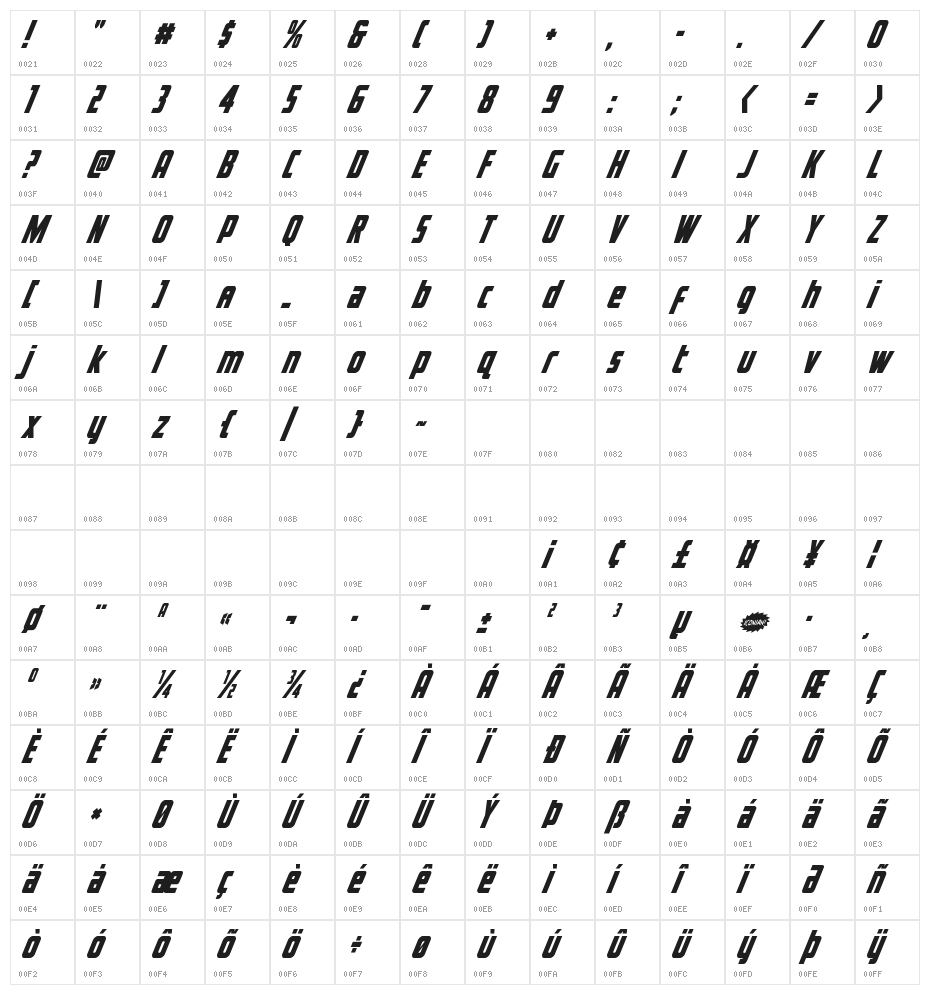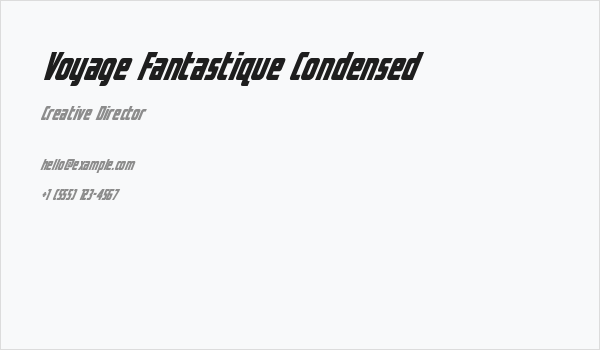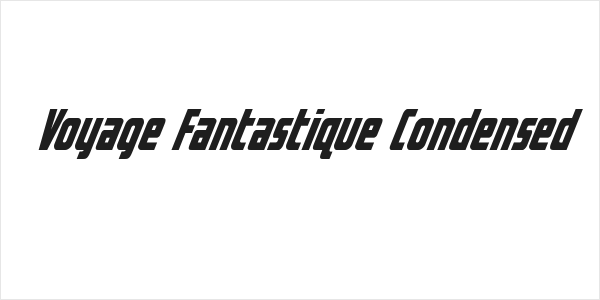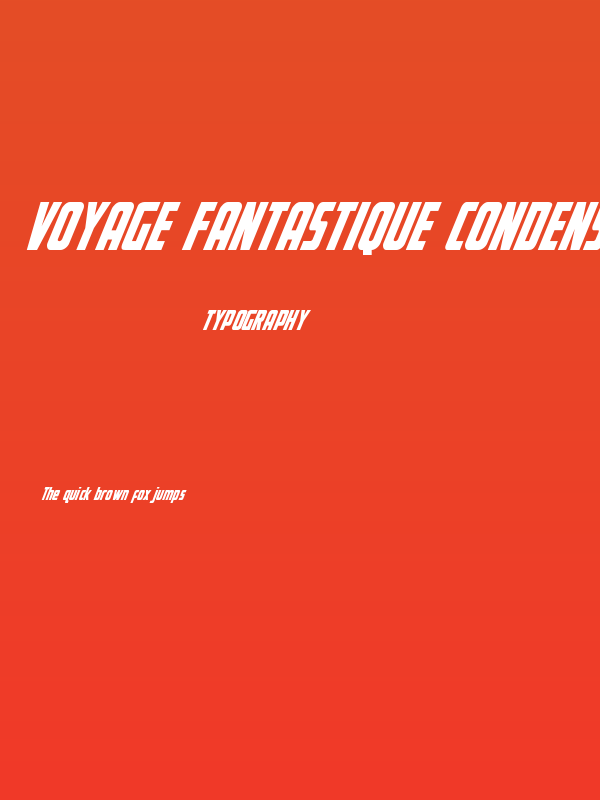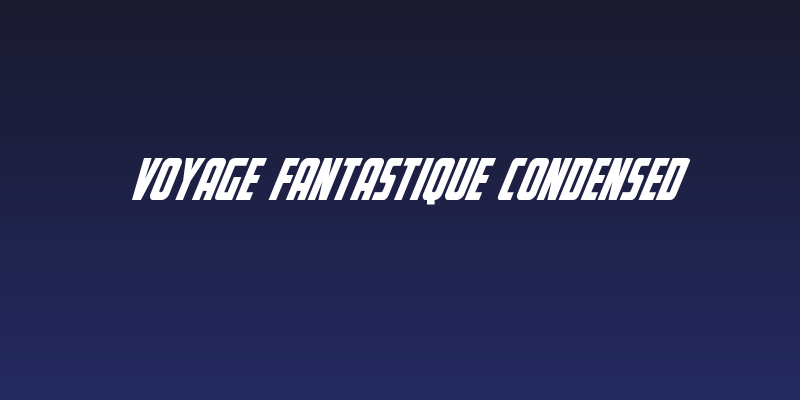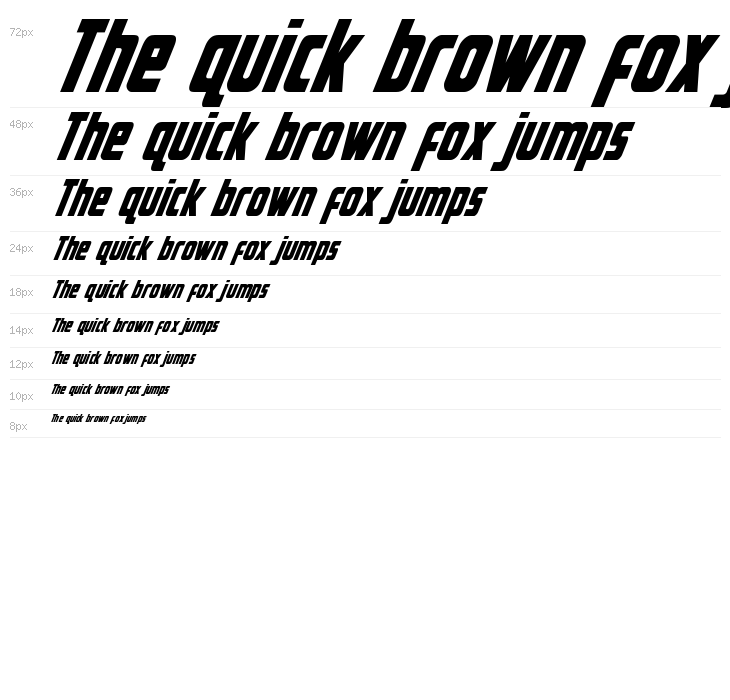
Voyage Fantastique Condensed Font
Voyage Fantastique Condensed Description
This font features a bold and dynamic style with a condensed width, giving it a strong and impactful presence. The characters are slanted, adding a sense of motion and energy. The strokes are thick and consistent, providing a uniform appearance across all characters. The uppercase and lowercase letters maintain a cohesive design, with sharp angles and clean lines. The numerals are equally bold, ensuring readability and emphasis. Special characters are included, matching the overall aesthetic with their bold and angular design.
| Proposed Projects | Ideal for sports branding, dynamic posters, action-themed designs, and modern advertising campaigns. |